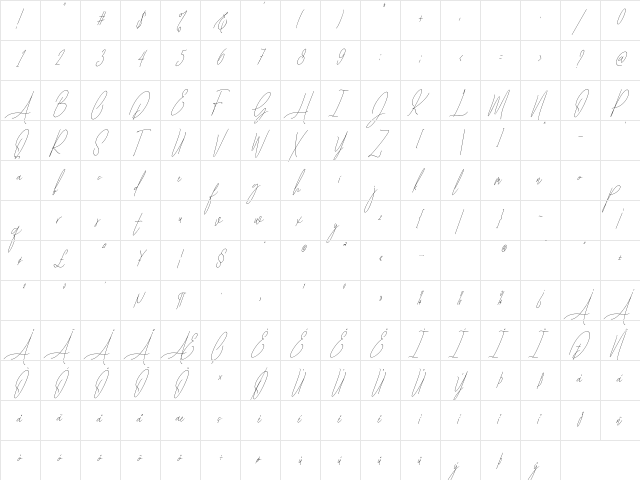
Diamante Signature_Italic
| Designer | Aldedesign 2019 |
Design Context for Diamante Typeface
Diamante is a composed and adaptable typeface that performs quietly and consistently across a wide range of design contexts. Its italic angle brings a sense of urgency and motion to the letterforms.